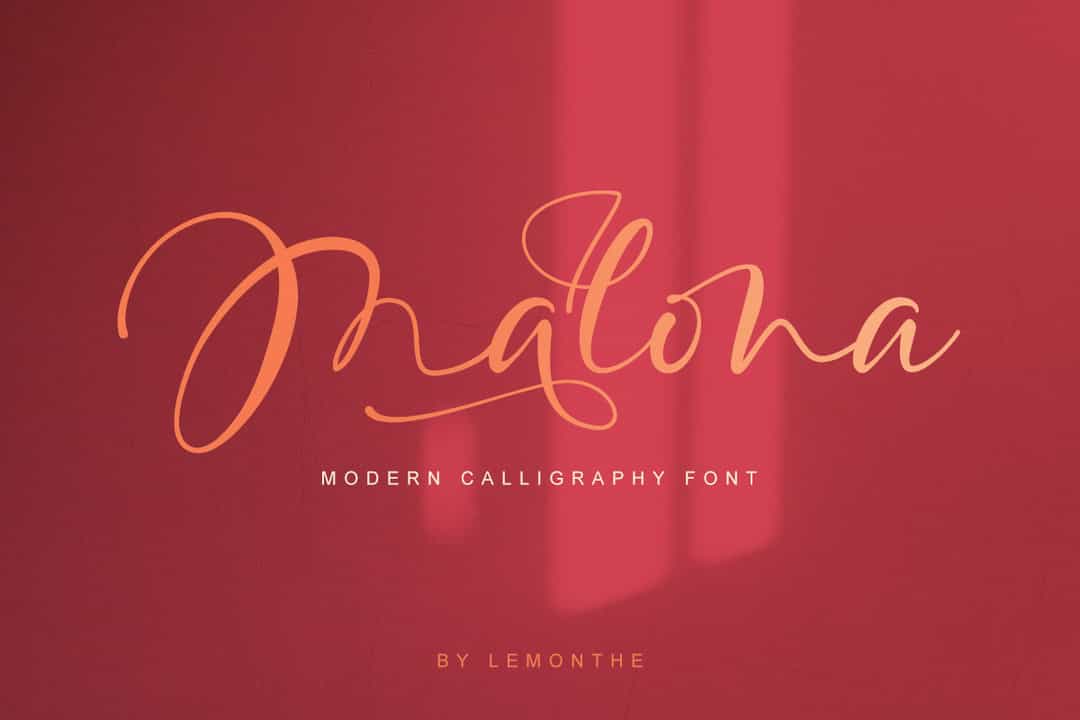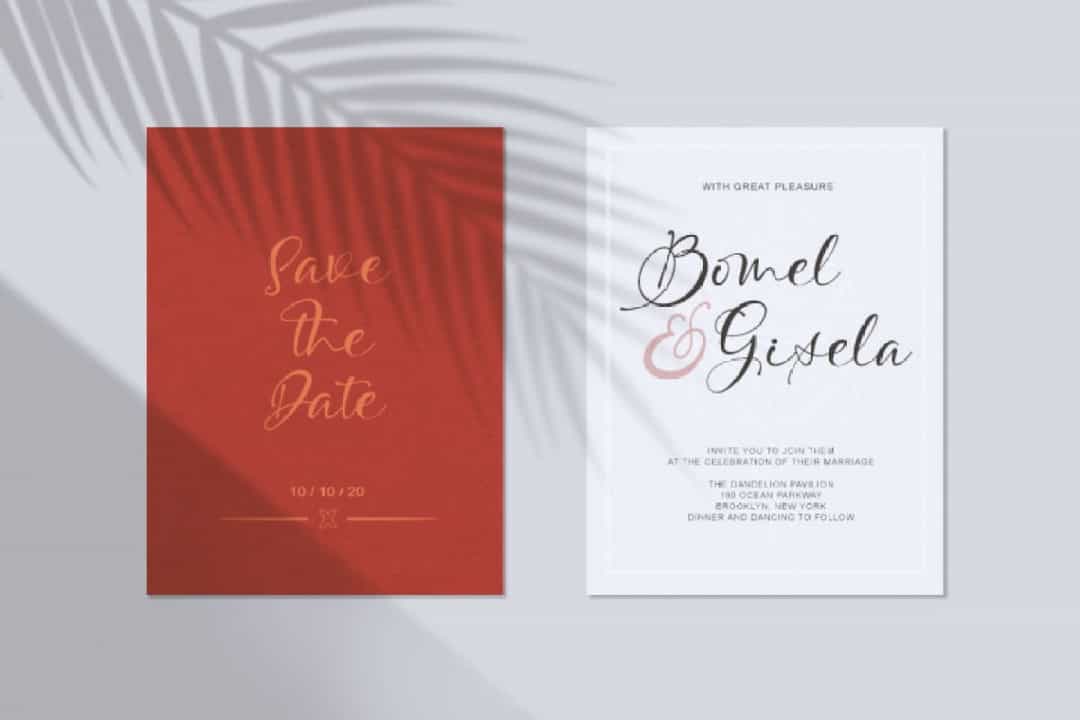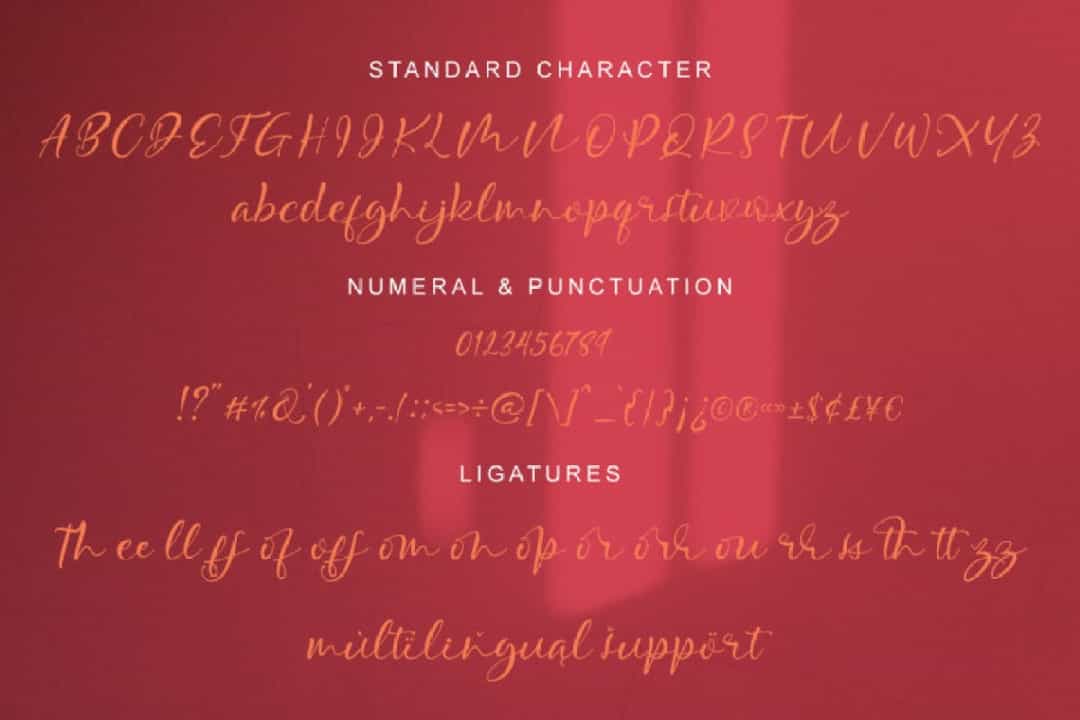
Malona is a neat and trendy calligraphy script font to use for the designs which have organic or natural related designs. This font is well suited to signatures, logos, lettering and labeling and will give a classy and stylish look to any design. A Modern and Classy design was used for this logo.